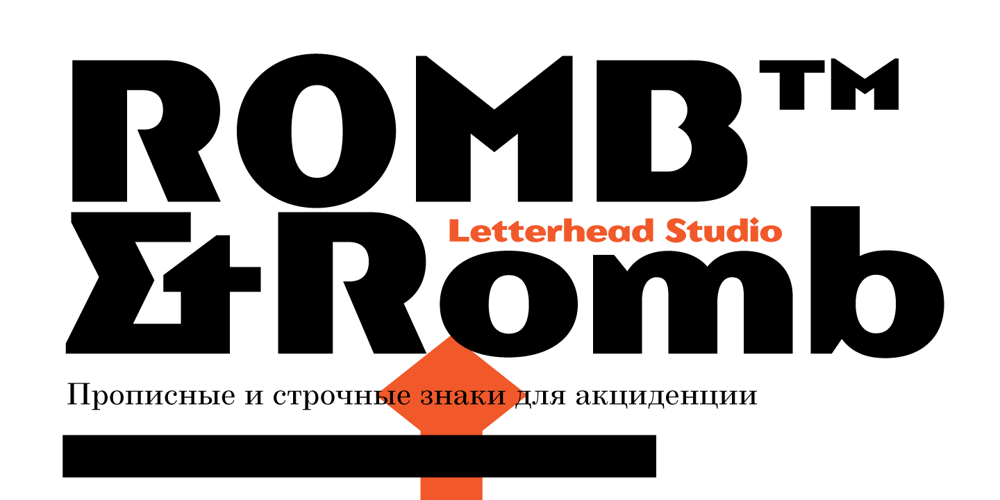
Romb Font Family was designed by Valery Golyzhenkov and published by Letterhead Studio-VG. Romb contains 1 styles and family package options. Romb is the display font based on feeling of the retro typefaces of the early 20th century. Good for posters, magazines, packaging.